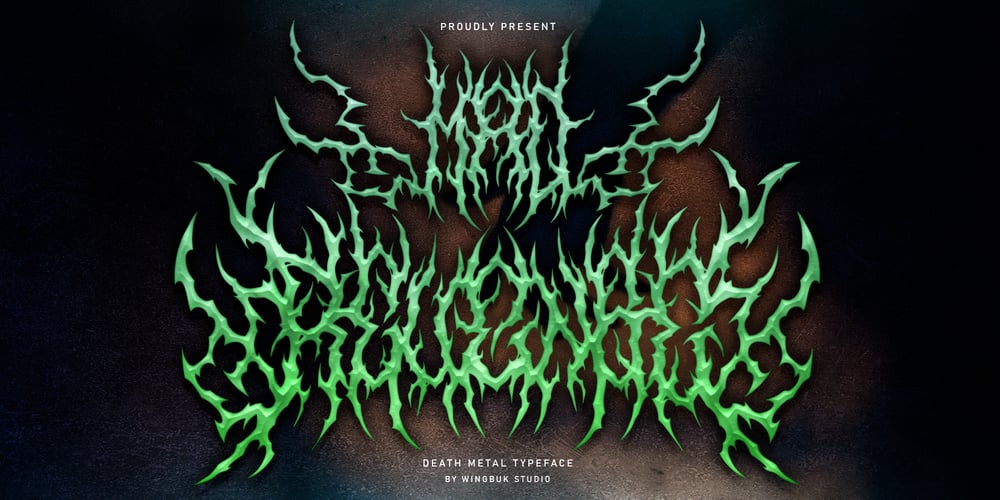
Mad Revenge Metal Font Family was designed by Adji Shaka and published by WingBuk Studio. Mad Revenge Metal contains 1 styles and family package options. Mad Revenge is a metal font that embodies raw intensity and burning fury. With its bold and sharp design, this font captures the spirit of vengeful defiance. Each letter is crafted with intricate details, featuring aggressive and daring elements that make it perfect for creating a strong, energetic look in metal music, alternative culture, and related designs.From its jagged edges to its commanding form, Mad Revenge delivers a deep and dramatic impression, making it ideal for album covers, merchandise, and any project requiring an edgy and spirited touch. This font not only speaks visually but also conveys a message full of emotion and power.Recomended Software to use: Corel Draw Adobe Photoshop Adobe Illustrator